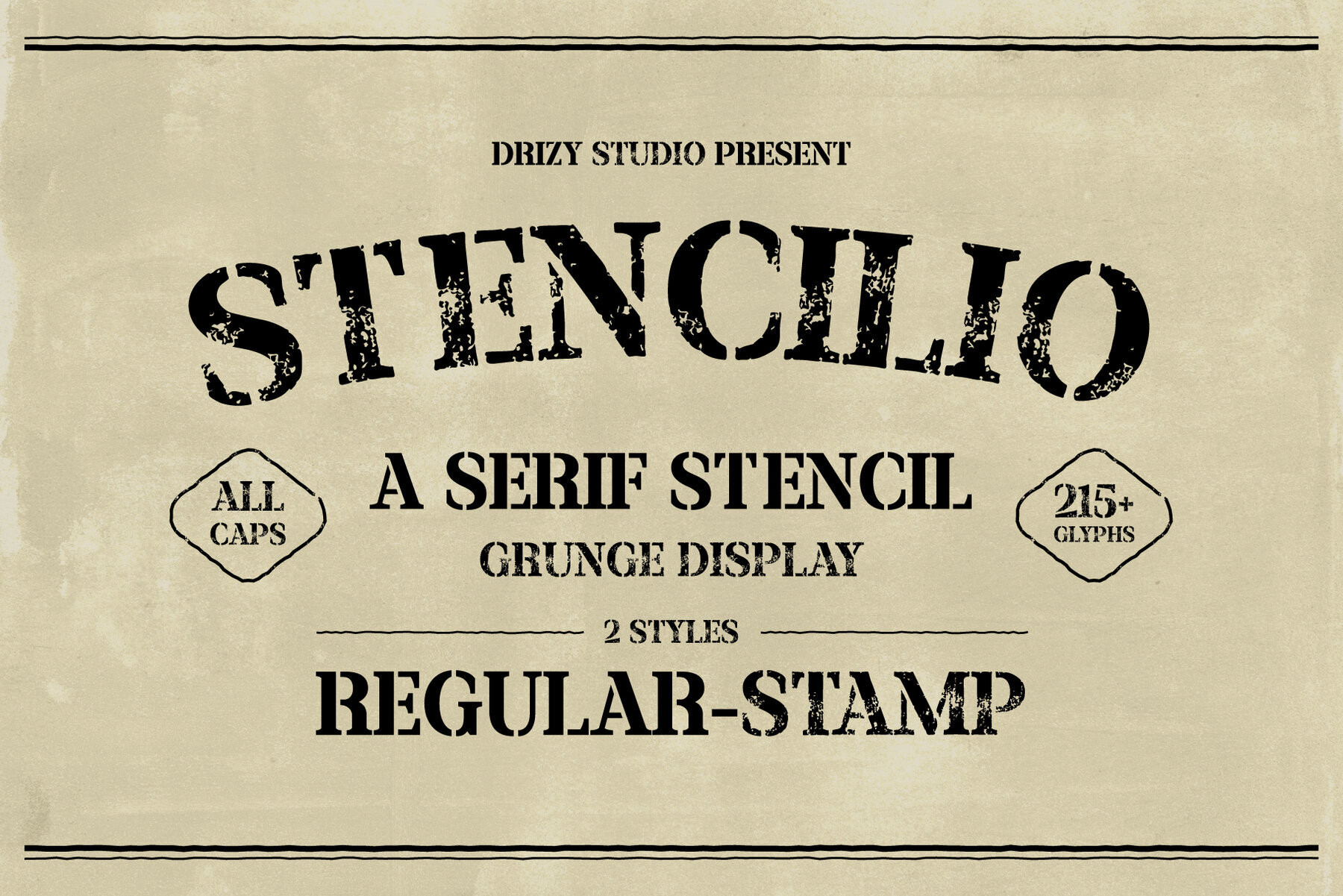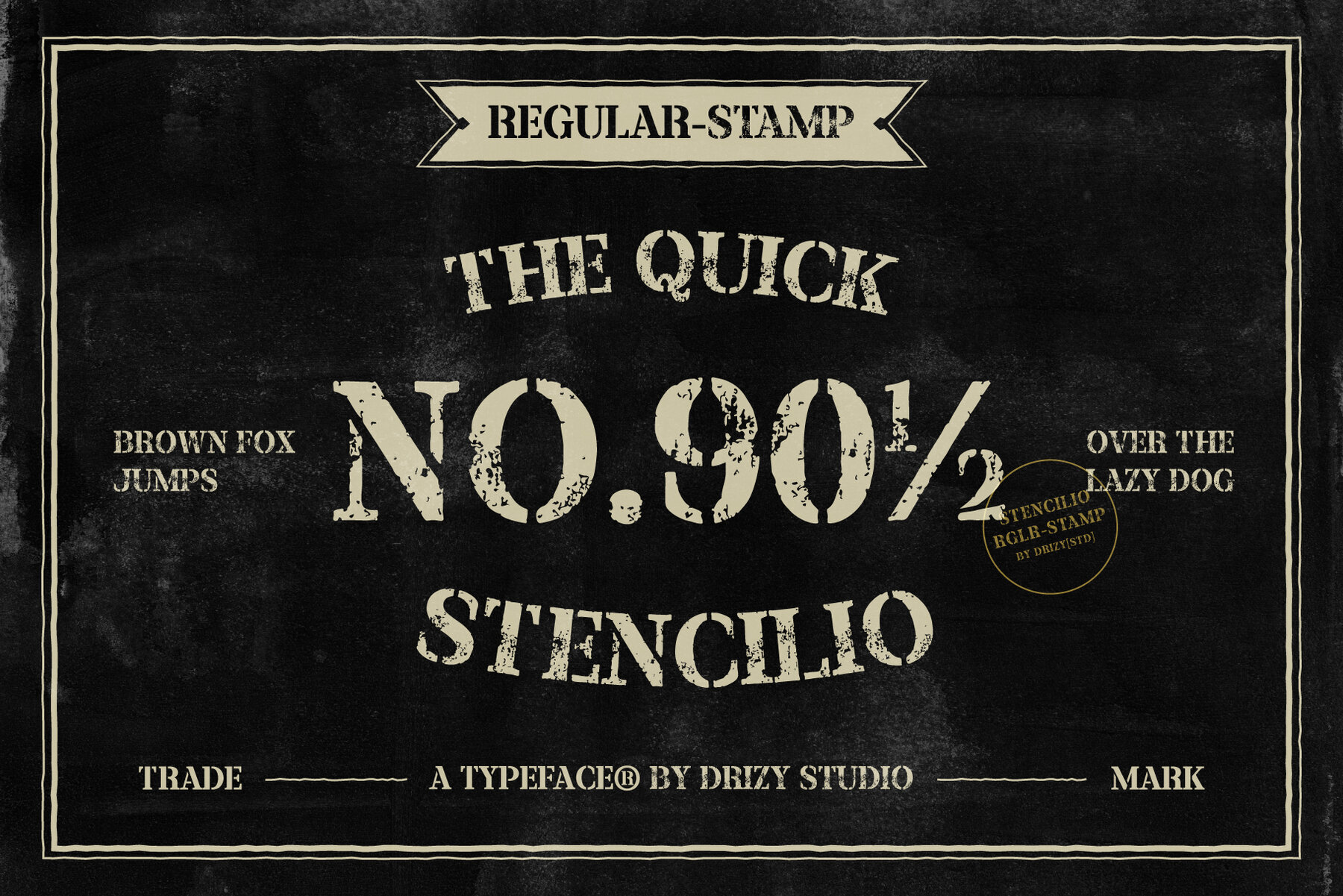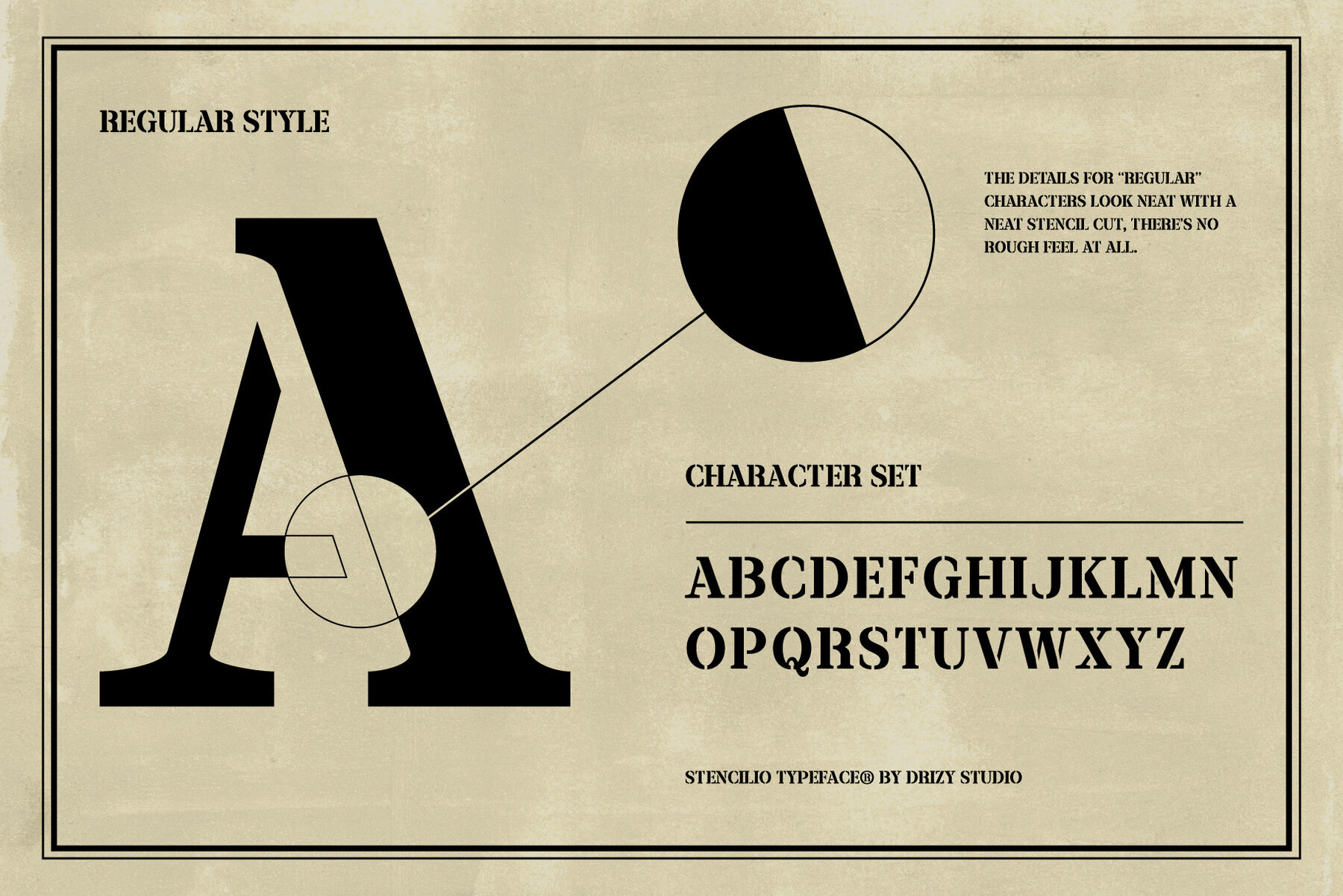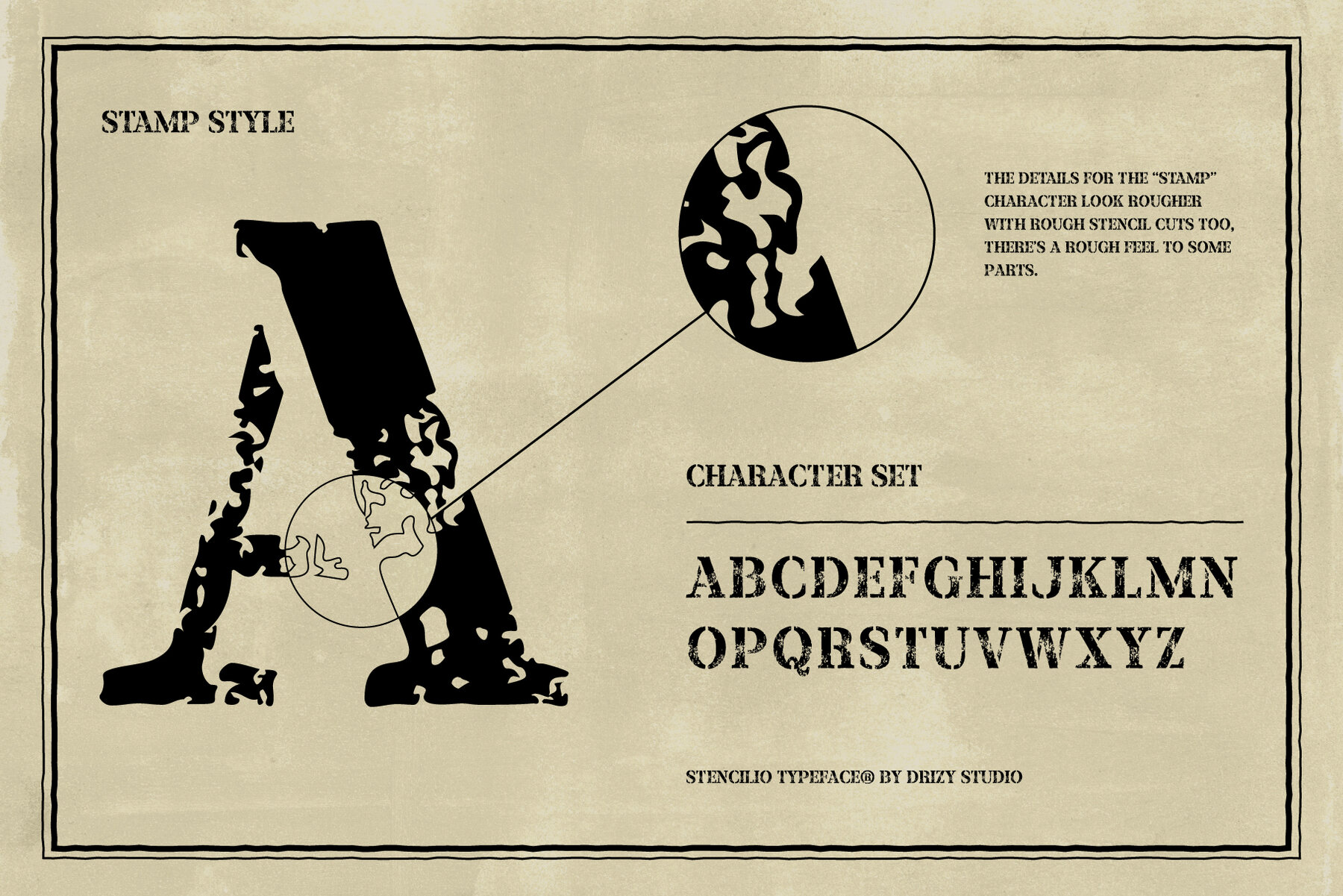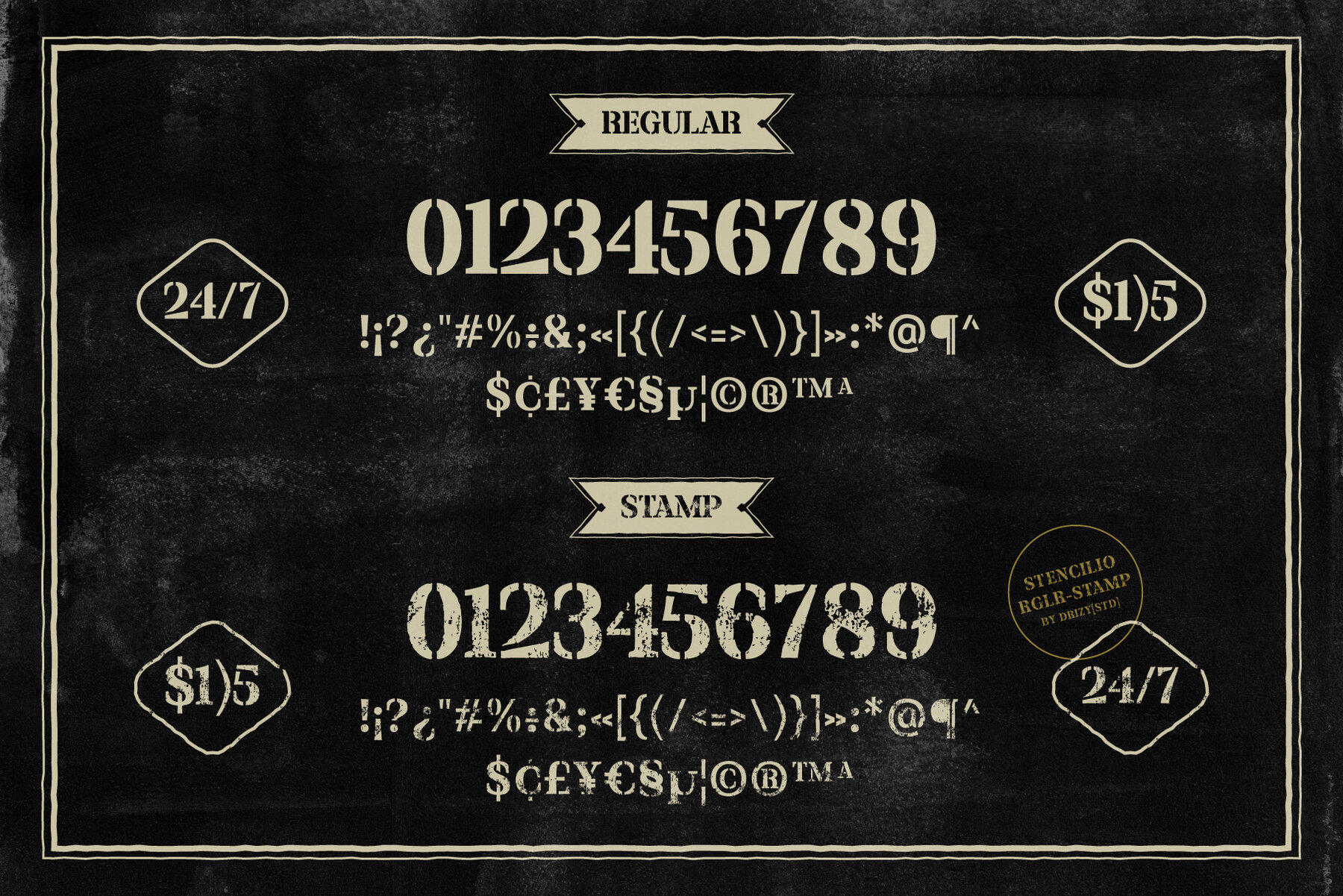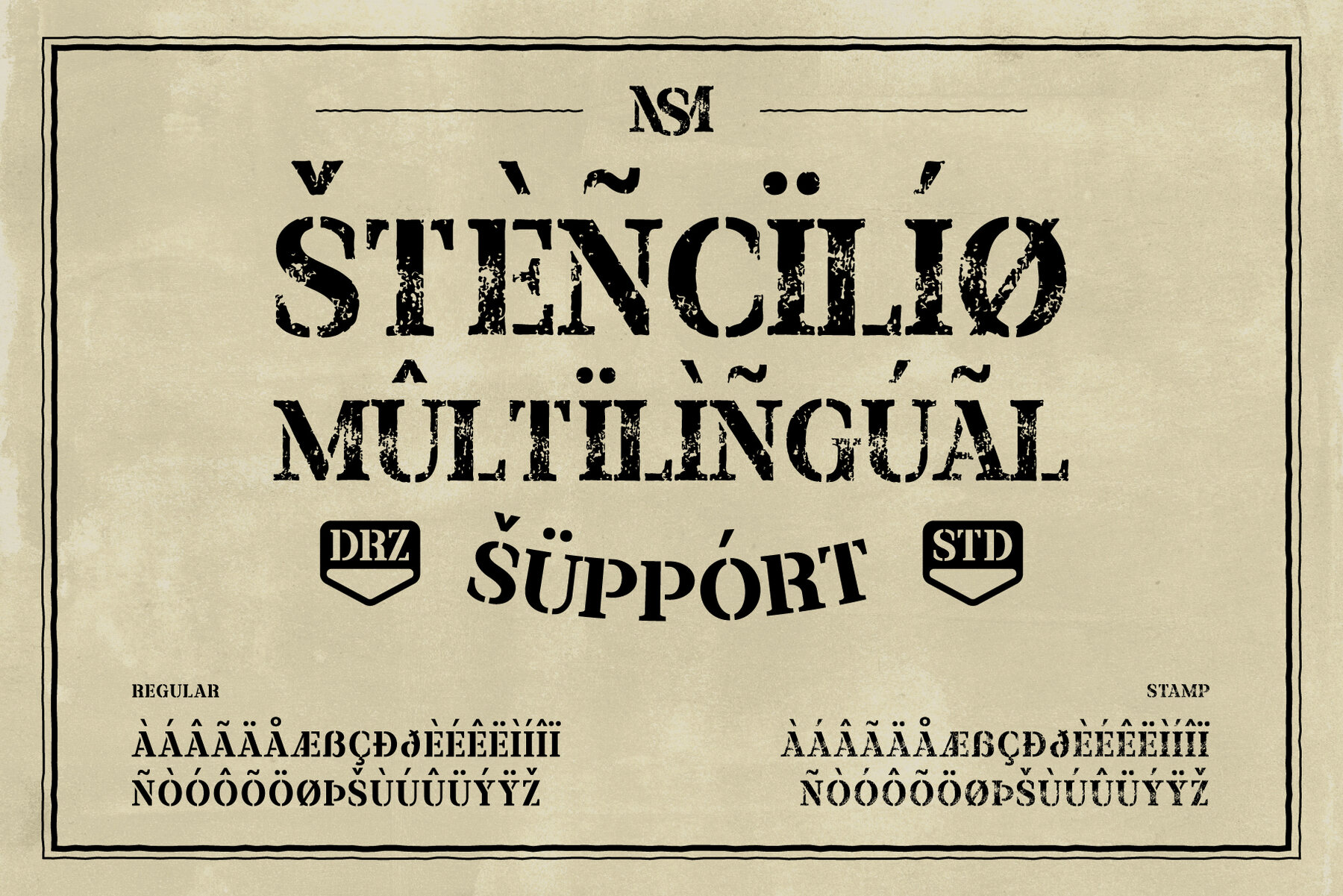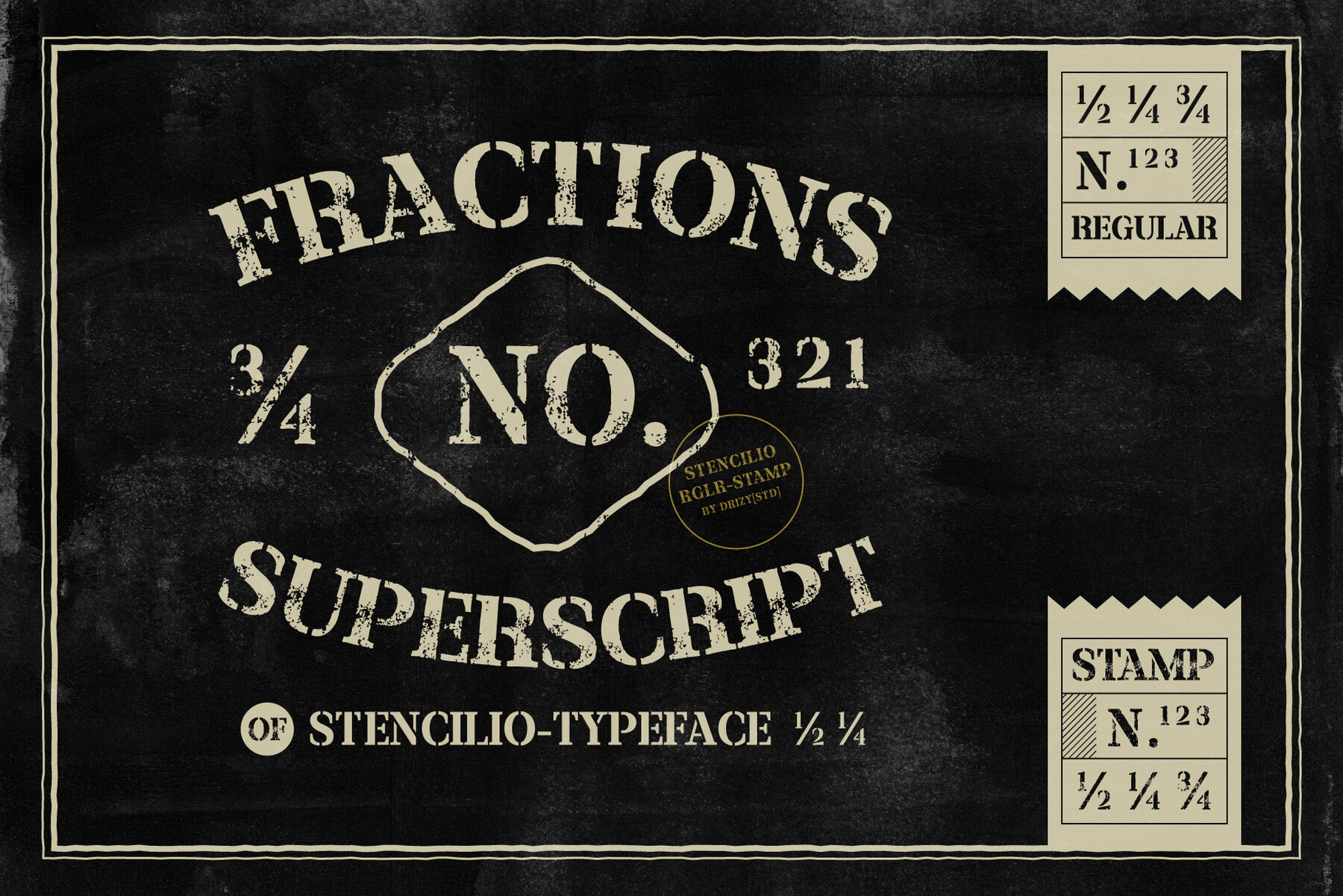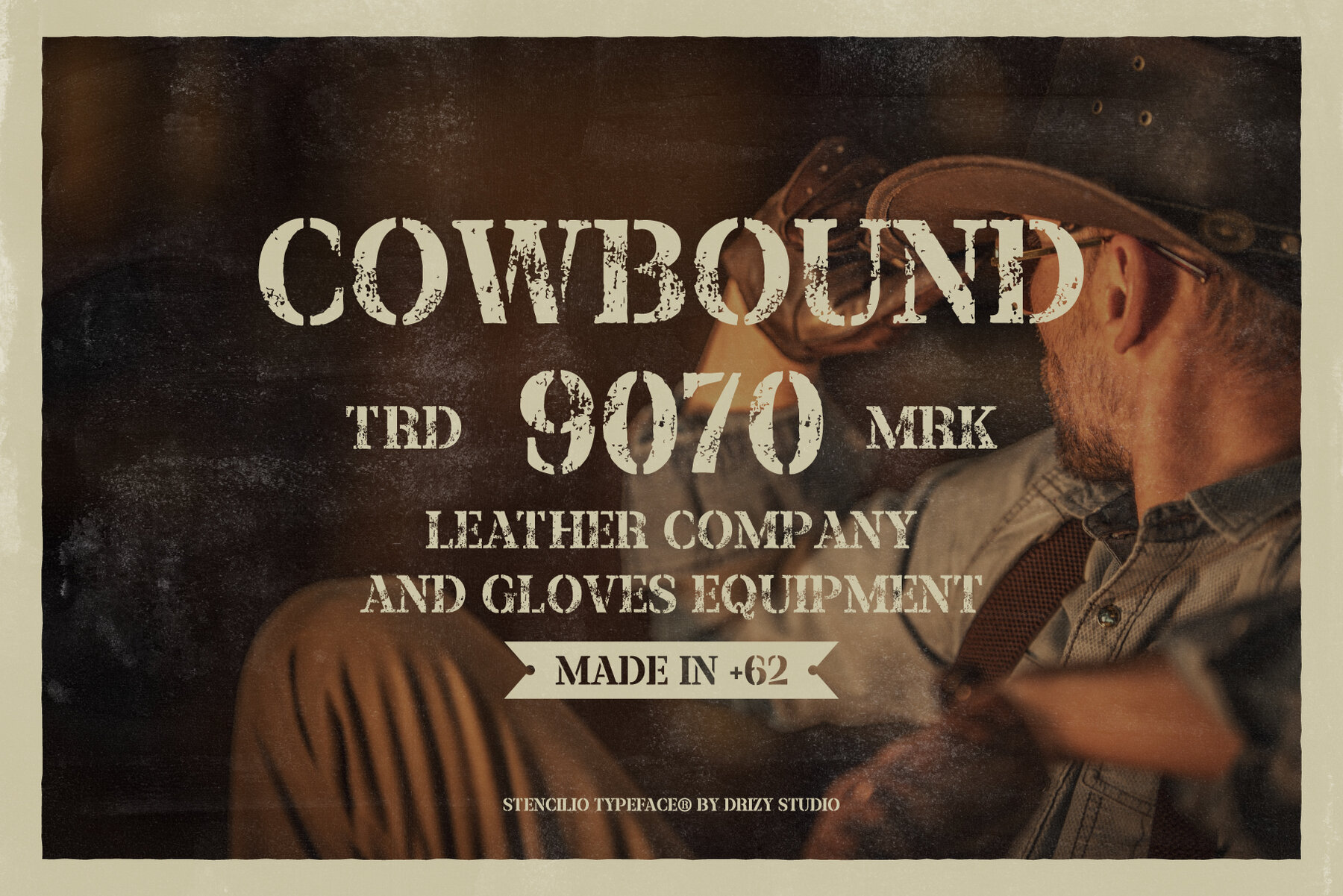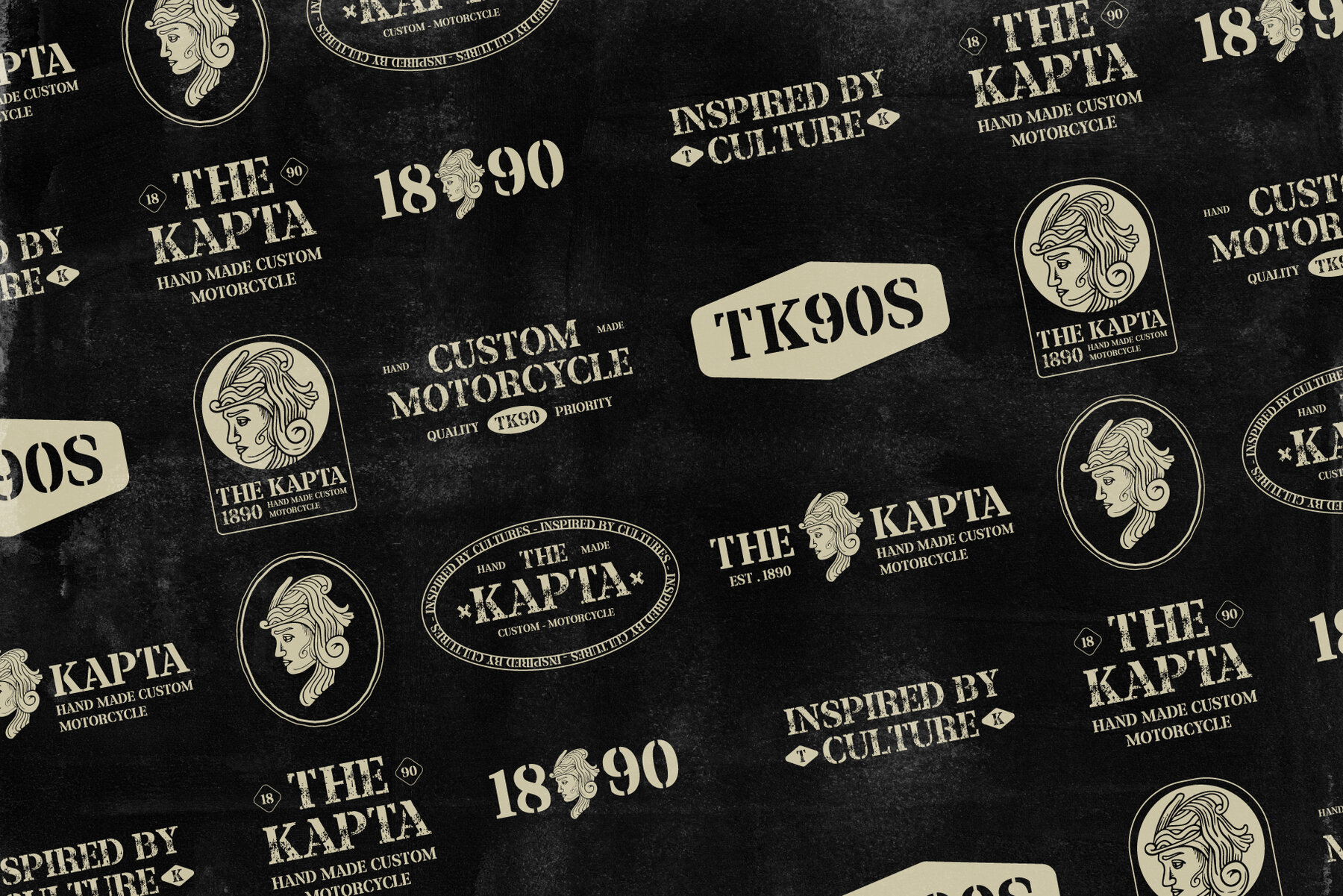
Stencilio Font
Stencilio emulates the look of characters stamped onto a surface with a rubber stamp. This serif stencil grunge font features a rugged and distressed aesthetic, reminiscent of traditional stamping techniques. Its unique texture and irregularities add a handcrafted charm and authenticity to any design project.
Key features of Stencilio include a full character set in all caps, punctuation, numbers, and two variable styles—Regular and Stamp. Additionally, Stencilio supports multiple languages, making it a versatile choice for diverse design needs. This font is perfect for creating standout posters, logos, and creative projects that require a raw, organic feel.